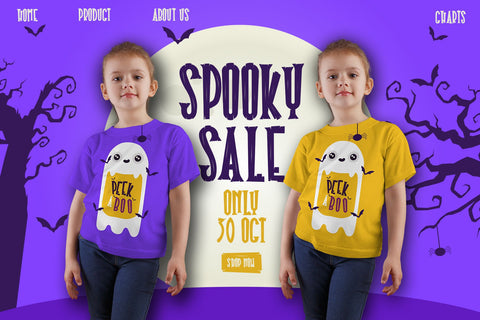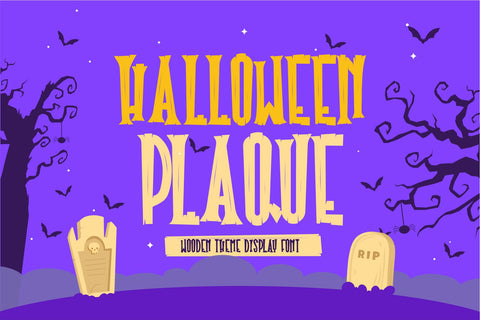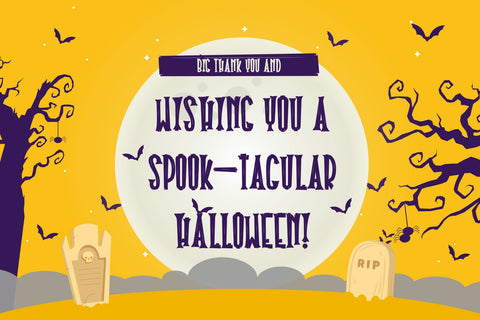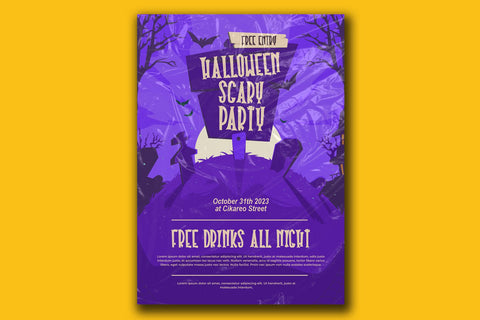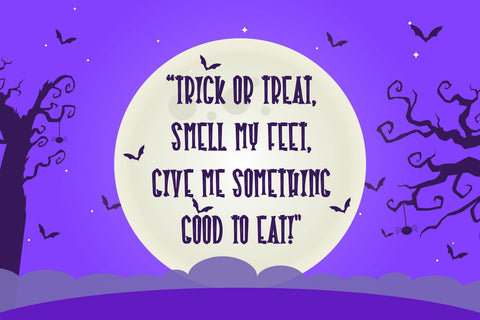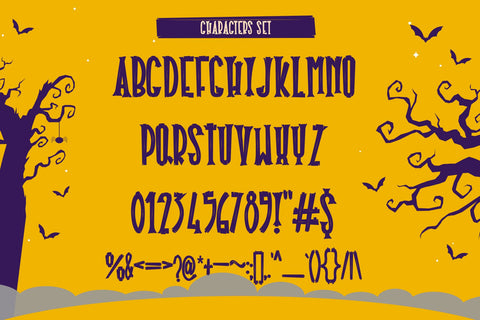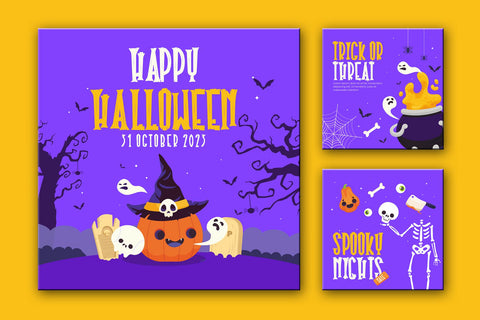
Halloween Plaque - Wooden Display Font
"Halloween Plaque" is a Halloween-themed display font with a texture resembling wood. Fonts like this are often used to create an effect that fits the Halloween atmosphere, especially if you want to give your design a vintage or mysterious look. Typically, fonts like these are suitable for creating Halloween signs, decorations, invitations, or other projects that aim to highlight the Halloween ambiance with a unique touch. If you need more information about this font or have specific questions, please feel free to ask!